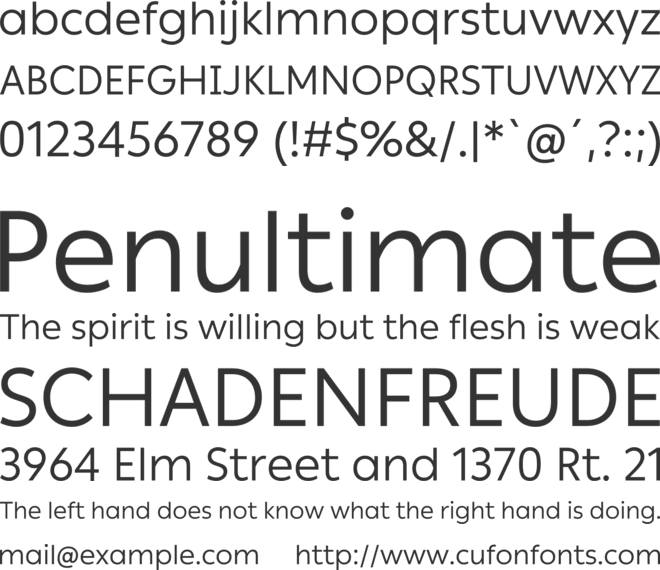
Ping LCG Font Family
Peter Bilak
Ping is a fluid sans serif font with a geometric structure, but unlike other geometric typefaces, Ping doesn’t reject the influence of the human hand. Ping’s simplified letterforms are constructed with the least number of pen strokes; for example the lowercase letters ‘a’, ‘d’, ‘p’, ‘b’ and ‘g’ are drawn without lifting the pen at all.(Creator: Peter Biľak)